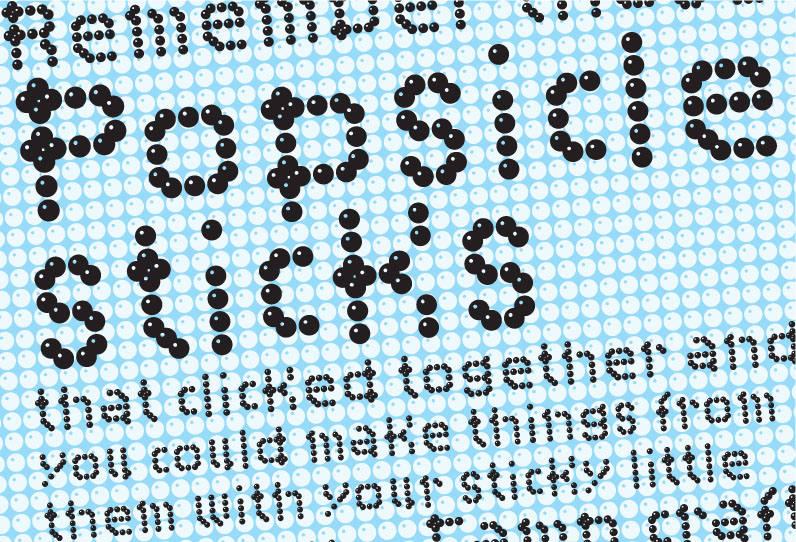
Campcraft Basic Remember those Popsicle sticks that clicked together and you could make things from them with your sticky little fingers, like... Camp crafts? Well, no. Of course you don't. You were too young. That's why there is Campcraft. Contains 205 characters in 9 ranges Version 1.003 Copyright (c) 2010 by Russell McGorman, . All rights reserved. |